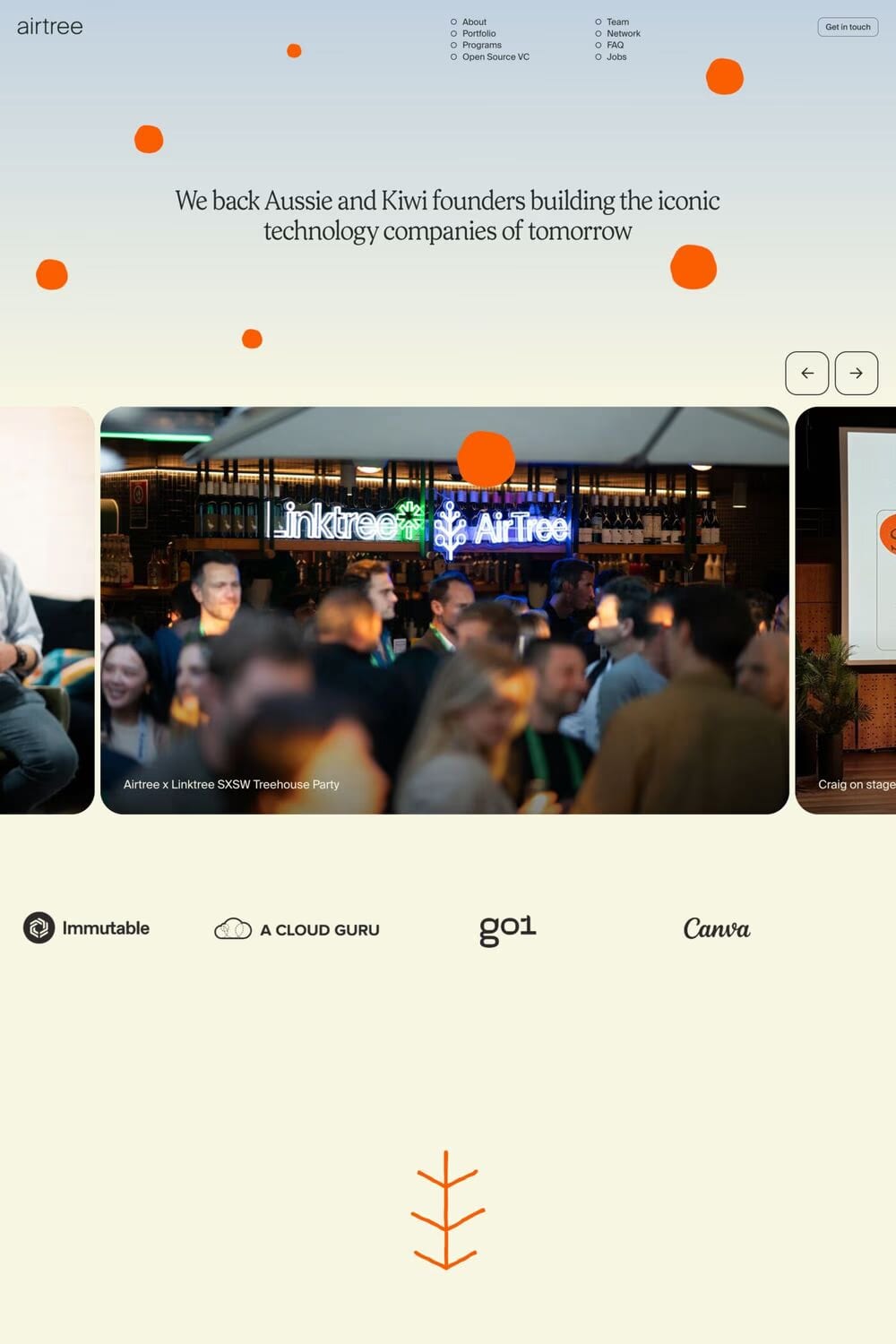
Prody is a sans-serif typeface from Calderon.
A clean, elegant and modern serif that has a strong personality thanks to its soft endings, rounded terminals, inspired from Cheltenham, Belwe and Souvenir. Prody is equipped for complex, professional typography.